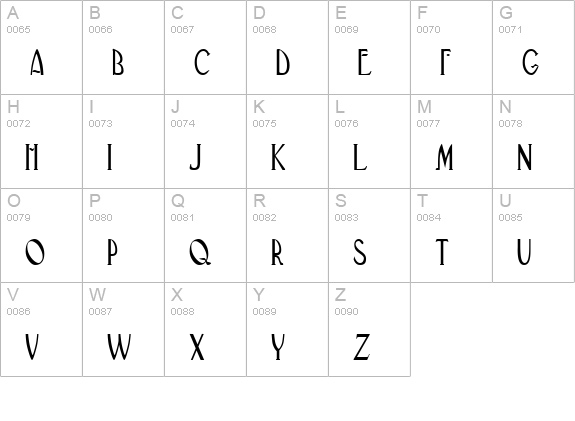
Deco-Condensed Normal Font Details
Deco-Condensed Normal is the standard, neutral, condensed-width variant in the Deco typeface family \xE2\x80\x94 well suited to general body text, paragraphs, and standard typographic work.
Deco-Condensed Normal font is a sleek and modern typeface that exudes sophistication and elegance. Its condensed design makes it perfect for creating eye-catching headlines, titles, and branding materials. With its clean lines and geometric shapes, this font adds a touch of refinement to any project. The best part? Deco-Condensed Normal font is completely free to download at FontsMarket.com. Whether you're a designer looking to add a stylish flair to your work or a business owner in need of a professional font for your marketing materials, this font is sure to impress. Don't miss out on the opportunity to enhance your designs with this versatile and stylish typeface. Download Deco-Condensed Normal font today and take your projects to the next level.